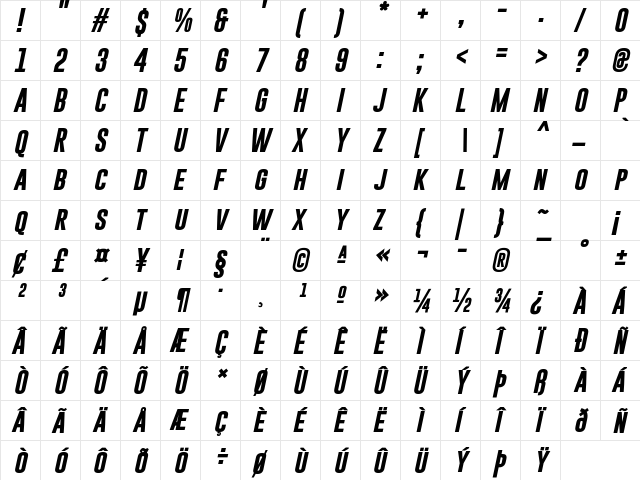
Gobold Bold Italic
| Designer | Situjuh Nazara |
Design Context for Gobold Bold Typeface
Gobold Bold offers clean, dependable letterforms without strong stylistic allegiance, making it a practical choice for designers who need flexibility. Its italic angle brings a sense of urgency and motion to the letterforms. The heavy weight commands attention and anchors typographic hierarchies.
Pro Tip: Use Gobold Bold for emphasis, pull quotes, and subheadings where its slanted energy can add rhythm to the layout.